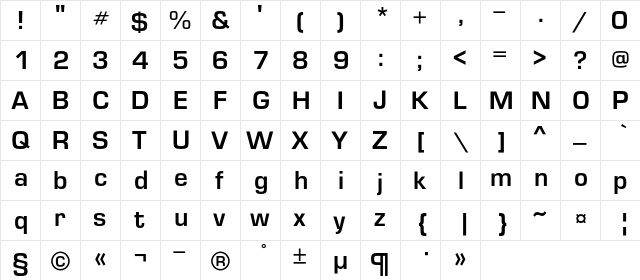
EuropeDemiC Regular Font Preview
EuropeDemiC Regular
Design Context for EuropeDemiC Typeface
EuropeDemiC offers clean, dependable letterforms without strong stylistic allegiance, making it a practical choice for designers who need flexibility.
Pro Tip: Pair EuropeDemiC with a font of contrasting weight or personality to build a more expressive typographic hierarchy.